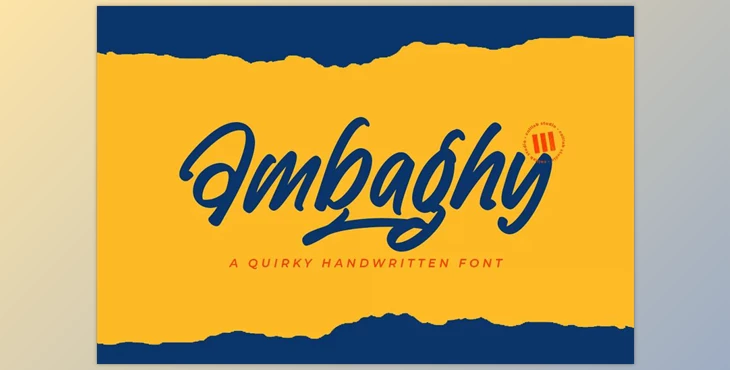
Ambaghy – A Quirky Handwritten Font: Ambaghy It's an edgy font that is enhanced by its chic handwritten style. It's sure to add a unique flair to your designs and bring a distinct look to your designs and it might just be the key ingredient that you've been searching for.
Ambaghy is perfect for headlines and logos and is also great for the body copy of the text.
Some great features of Ambaghy – A Quirky Handwritten Font:
- 338 Glyphs,
- Swashes & Ligatures
- Multilanguage Support ( 87 Languages )